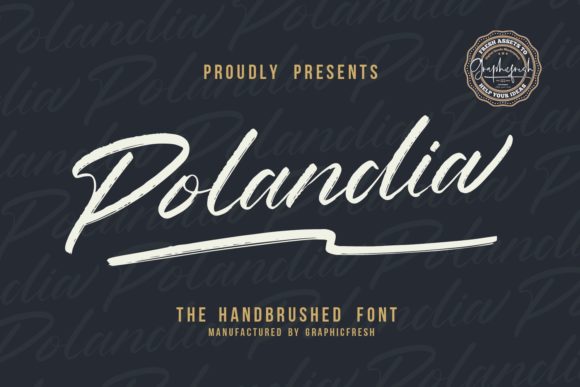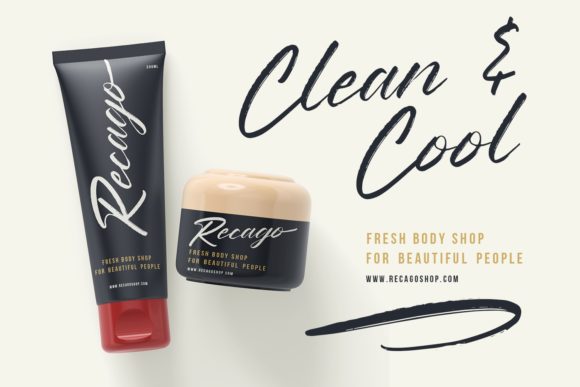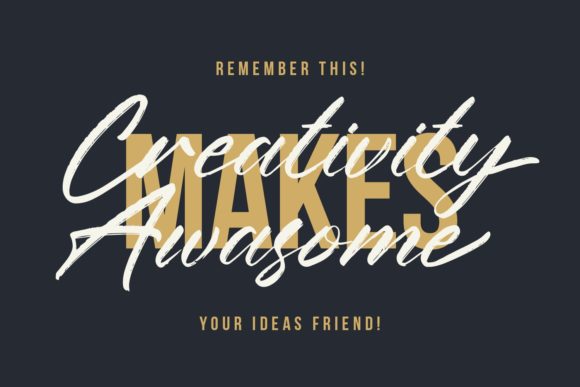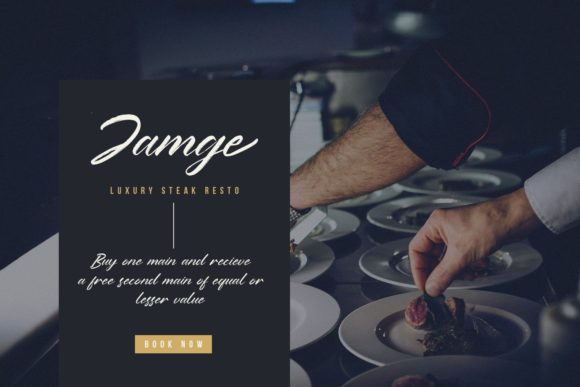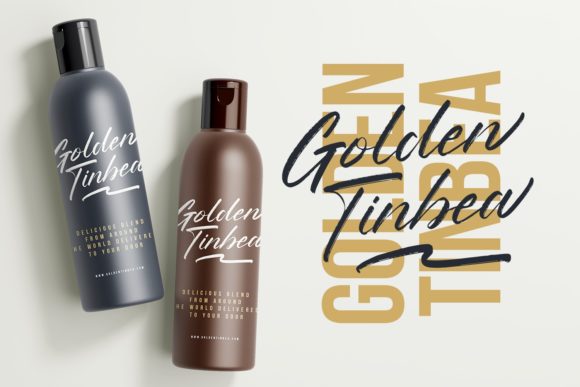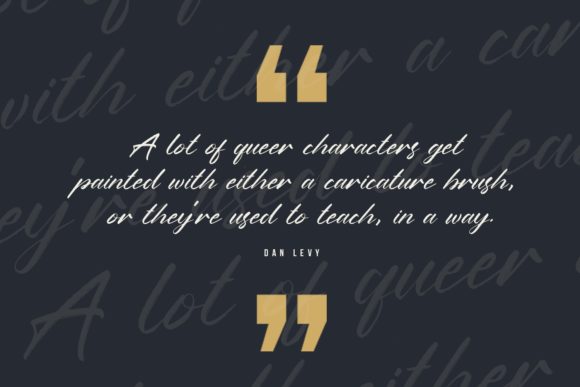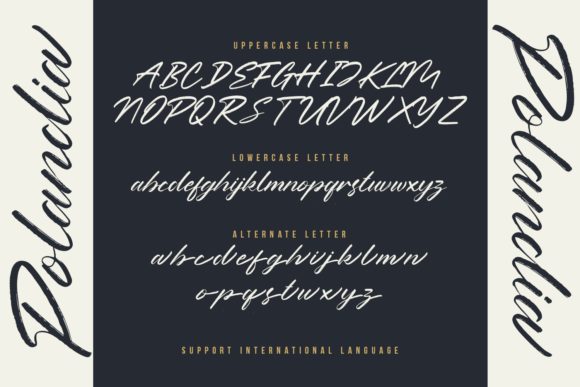
Polandia Font
About Polandia Font
Polandia is a sophisticated script font. It is ideal for a wide variety of projects, from business cards and posters to wedding invitations and magazines.